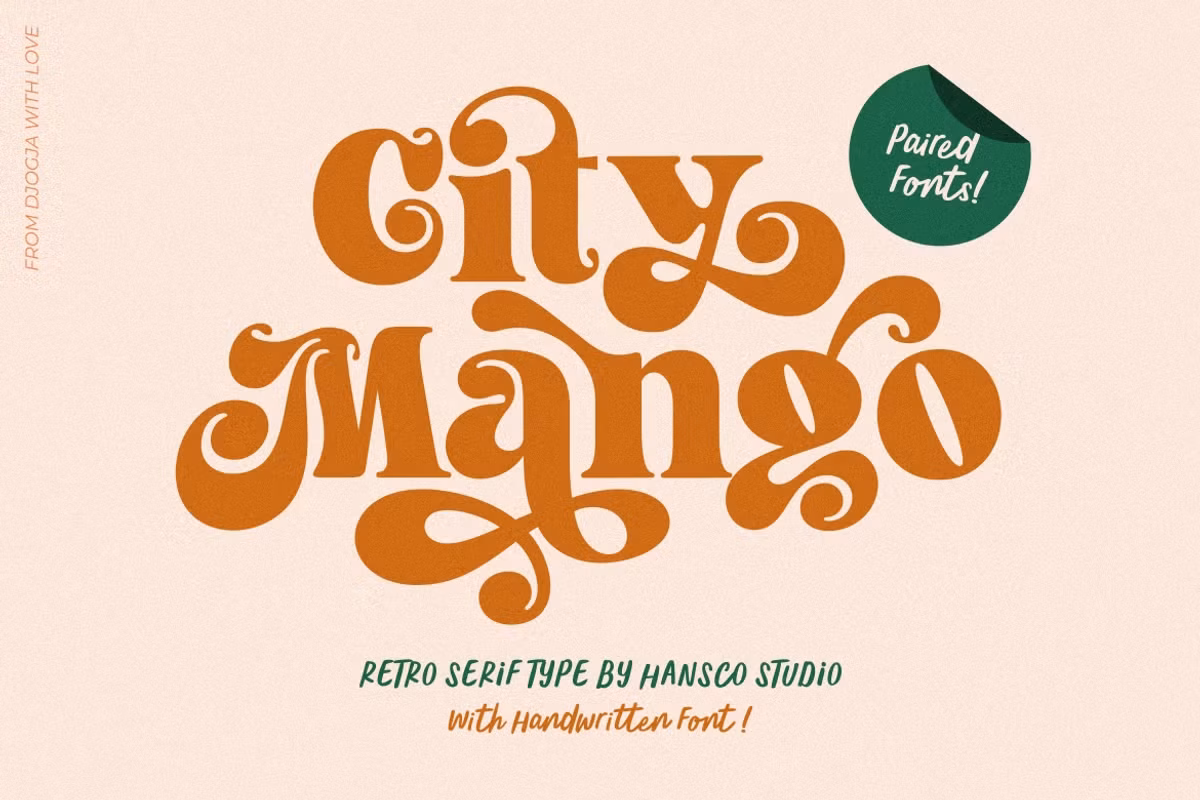
City Mango - Retro Serif Font Free Download
City Mango Retro Serif Font Free Download
City Mango Retro Serif Font Free Download is a bold and dynamic typeface designed with a vintage flair. Featuring strong serifs and a playful retro design, this font is perfect for creating nostalgic branding, headlines, logos, posters, and more. Its clean, geometric shapes combined with retro elements give it a unique and stylish character.
Whether you're working on a creative campaign, designing for a retro-themed event, or building a modern yet nostalgic brand identity, City Mango Retro Serif Font Free Download adds both charm and professionalism to your typography.